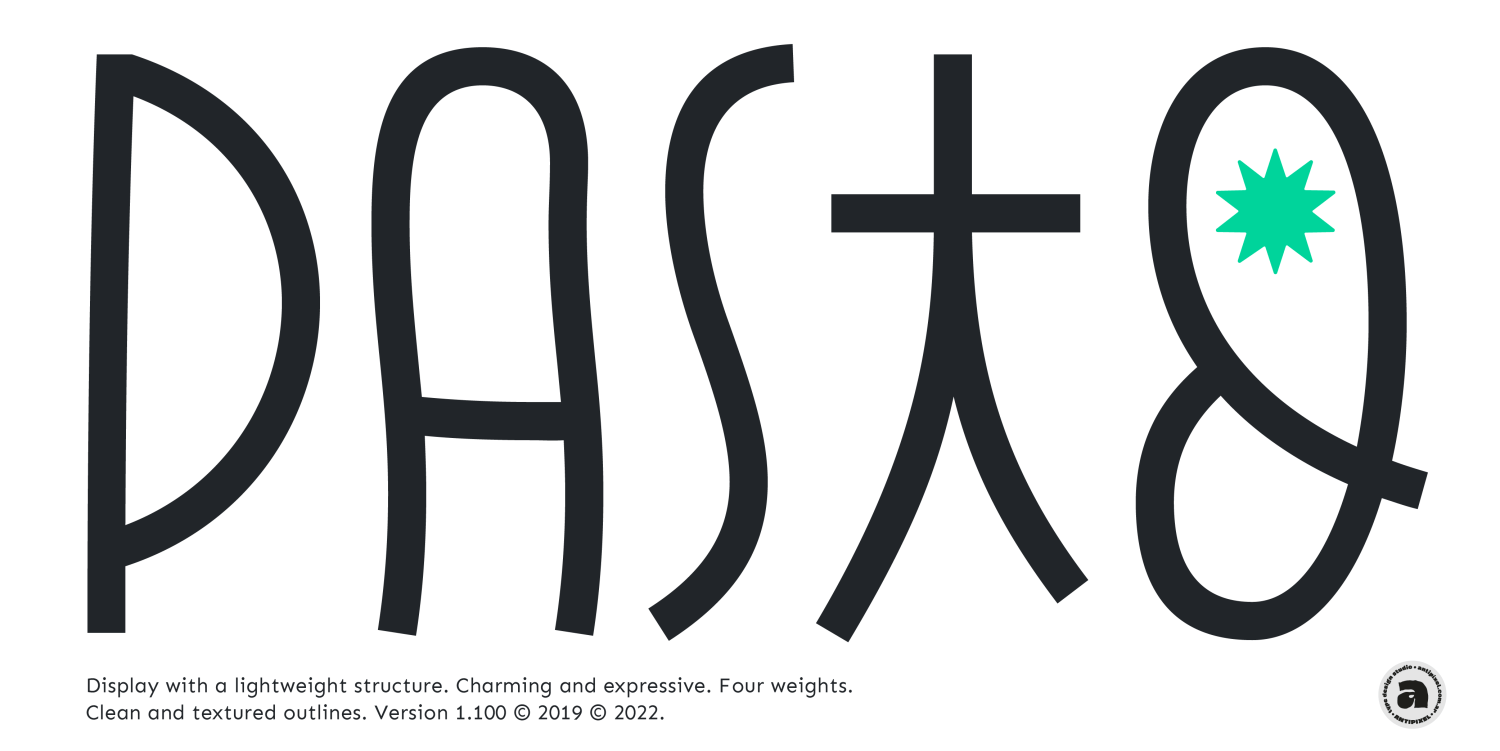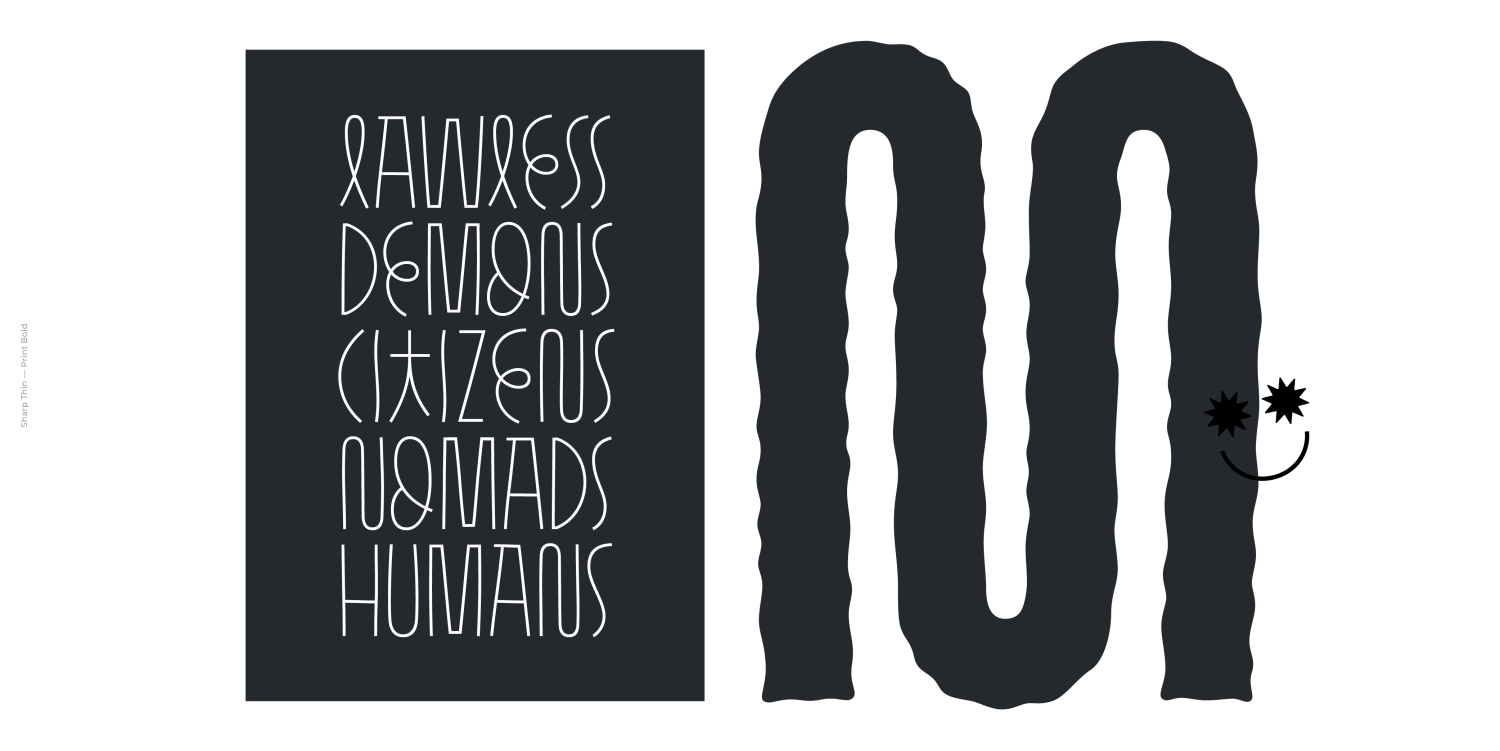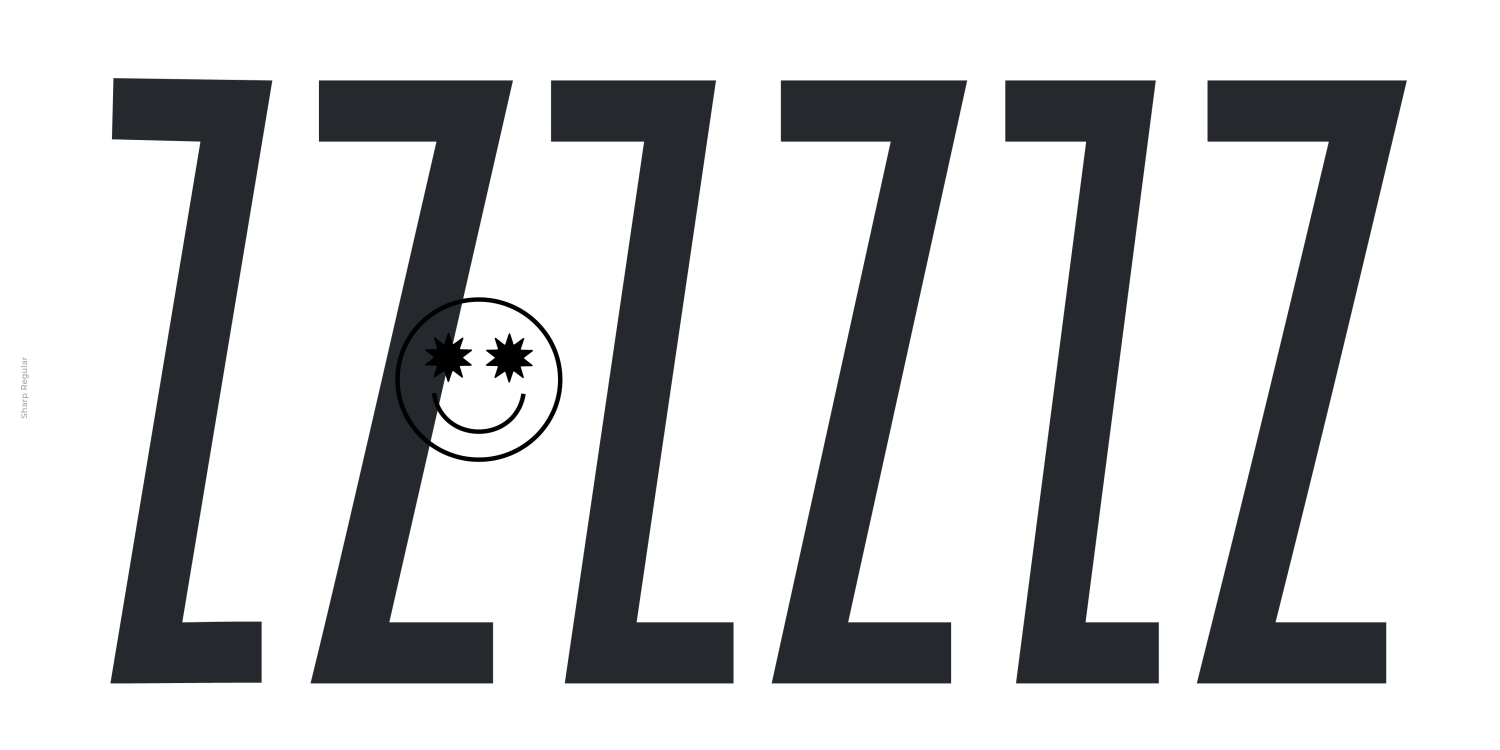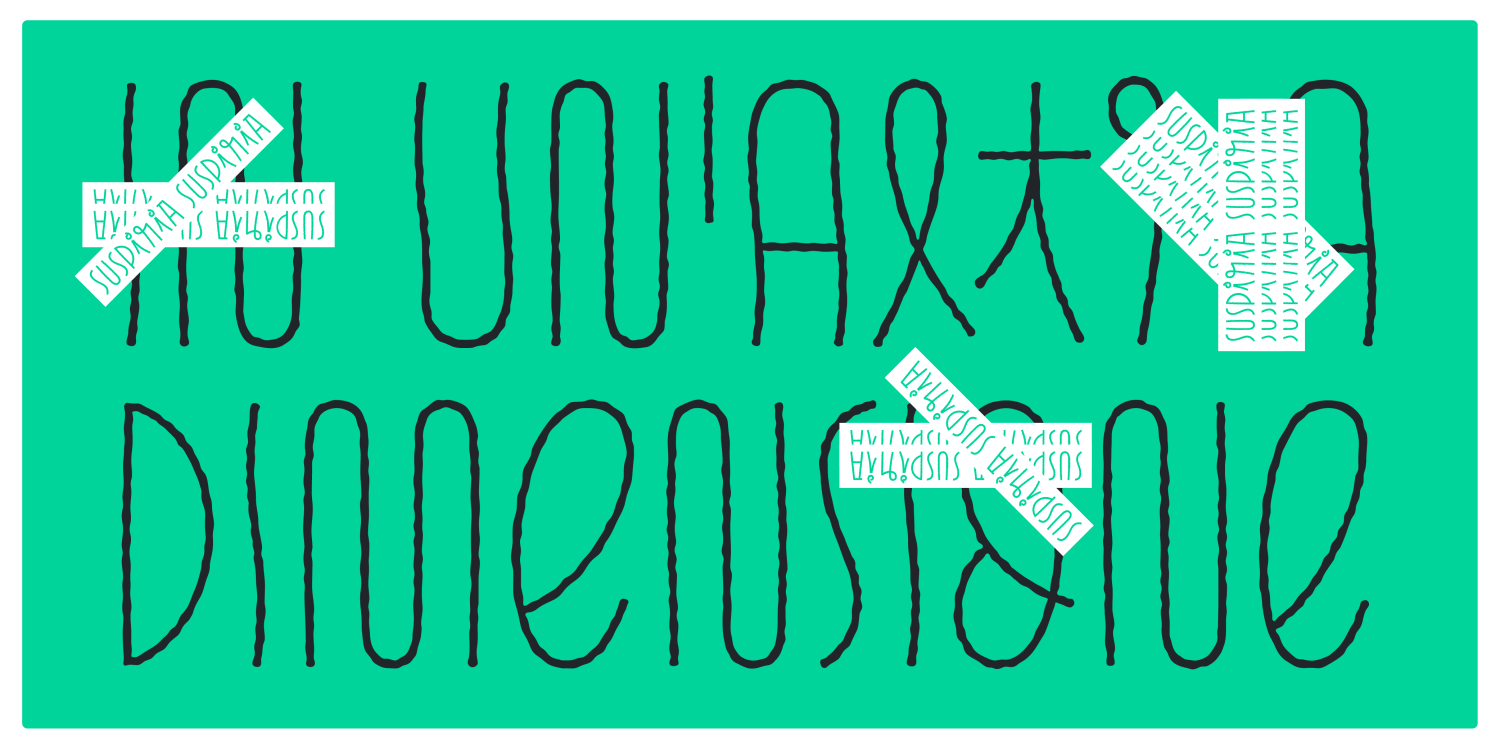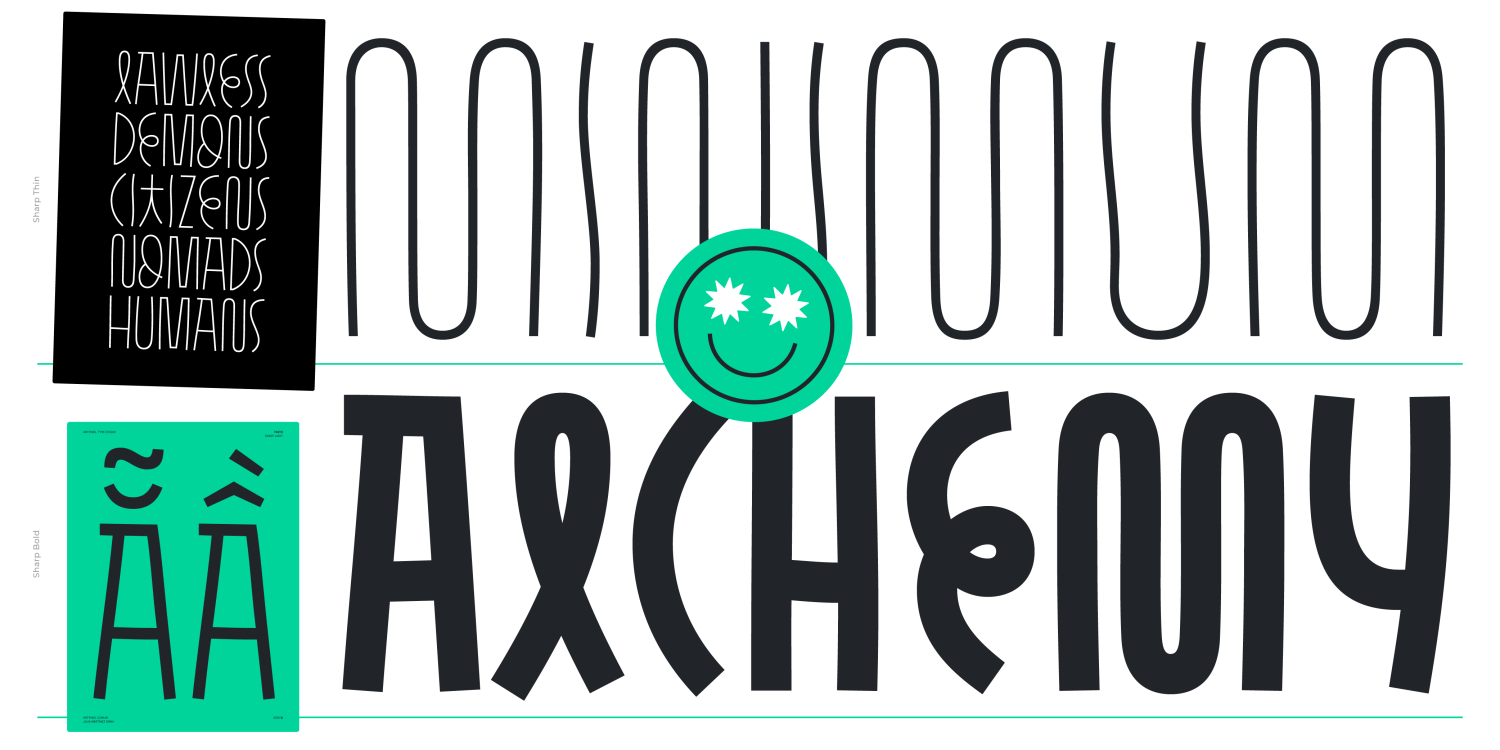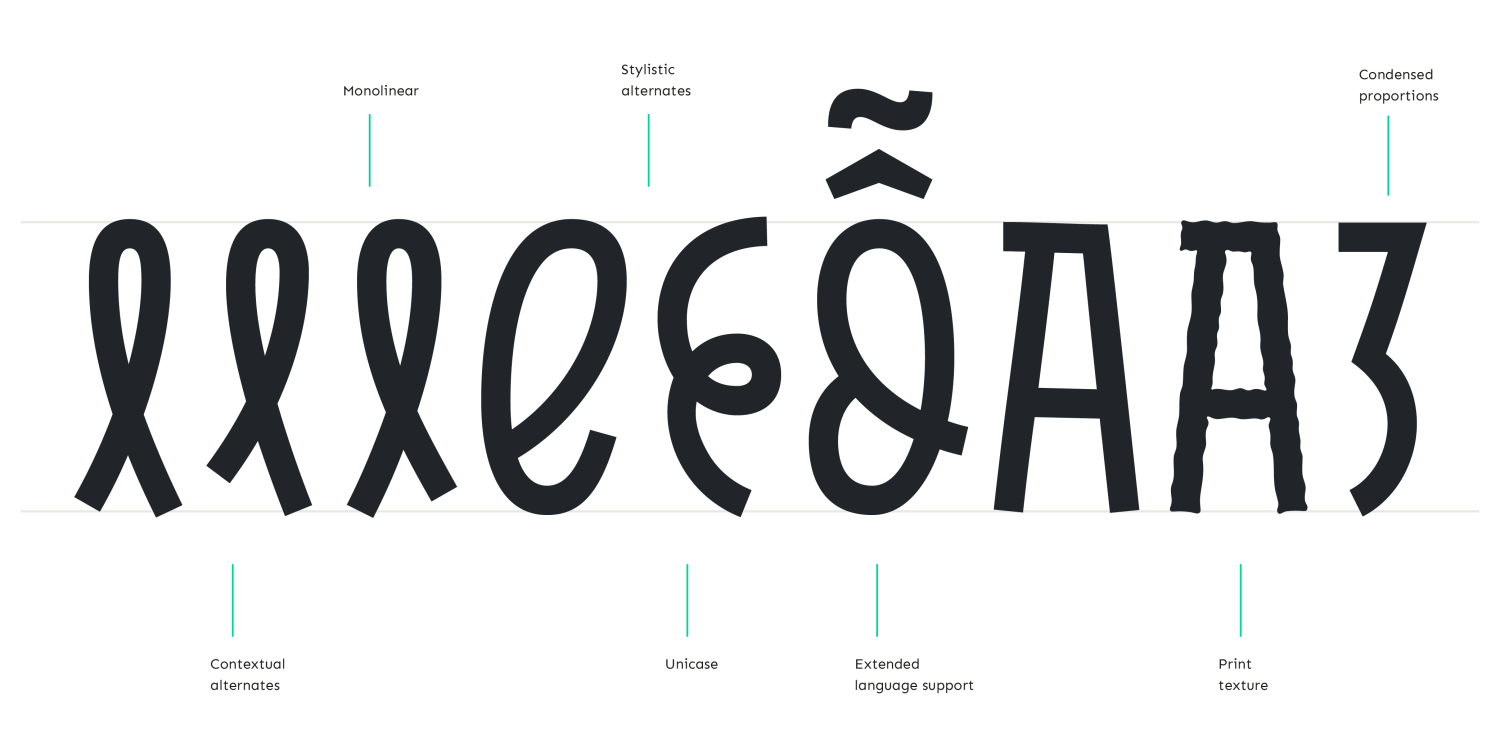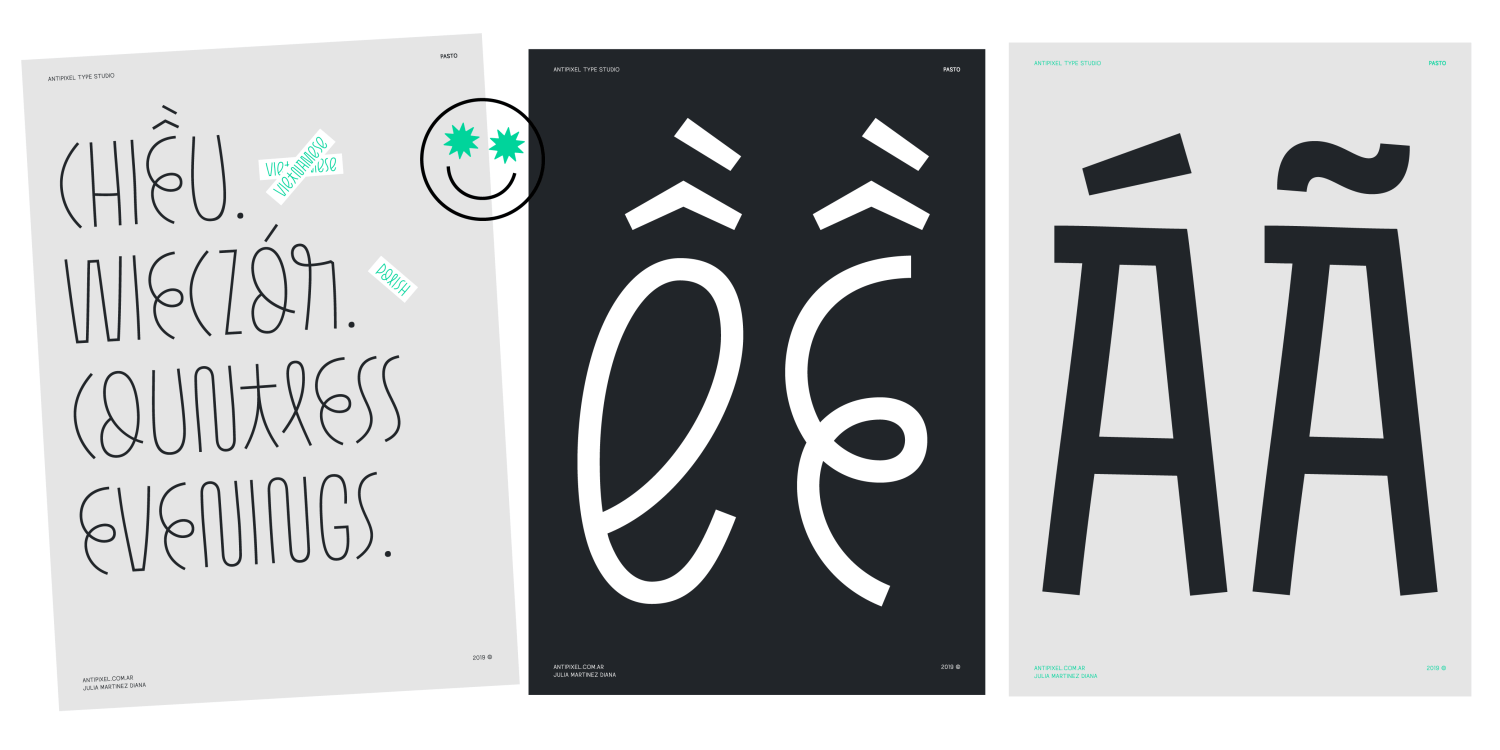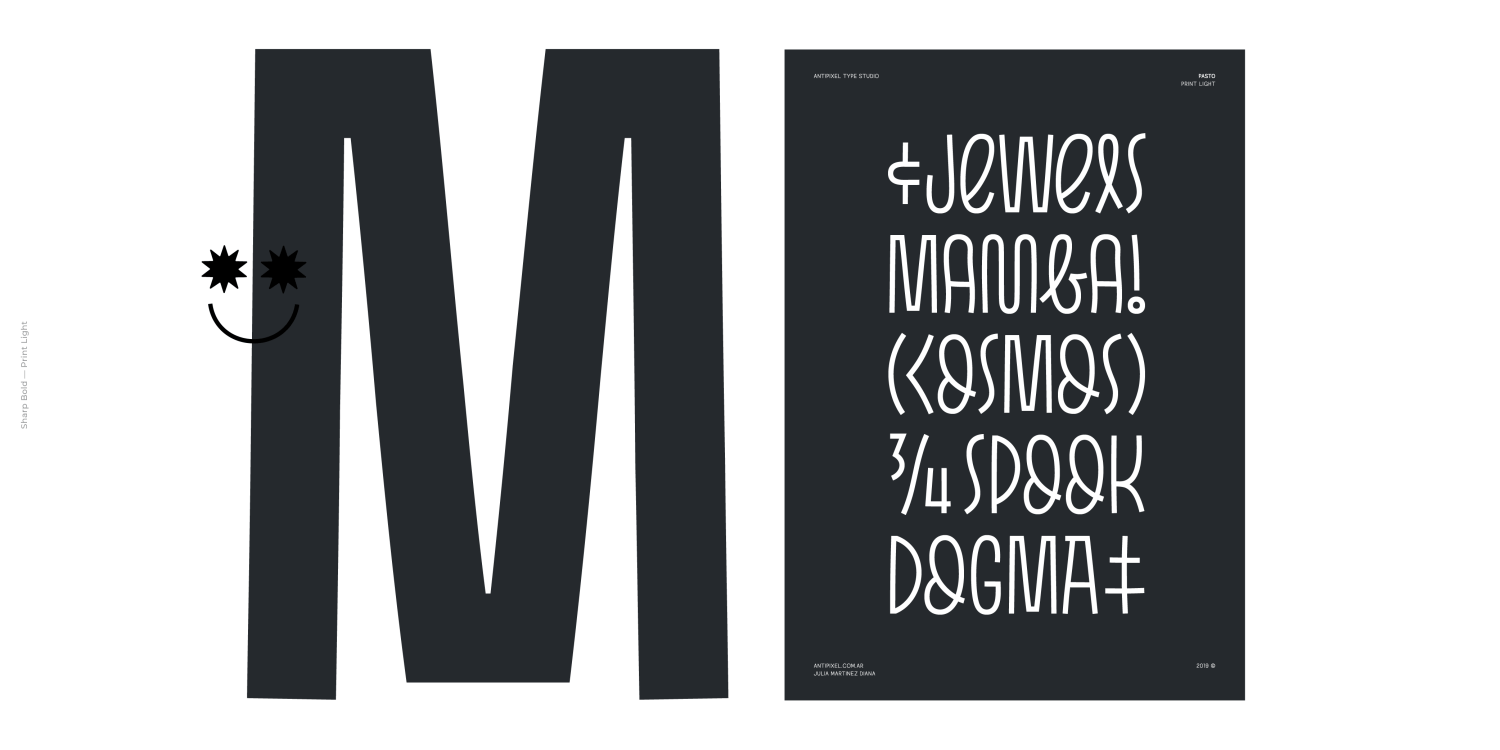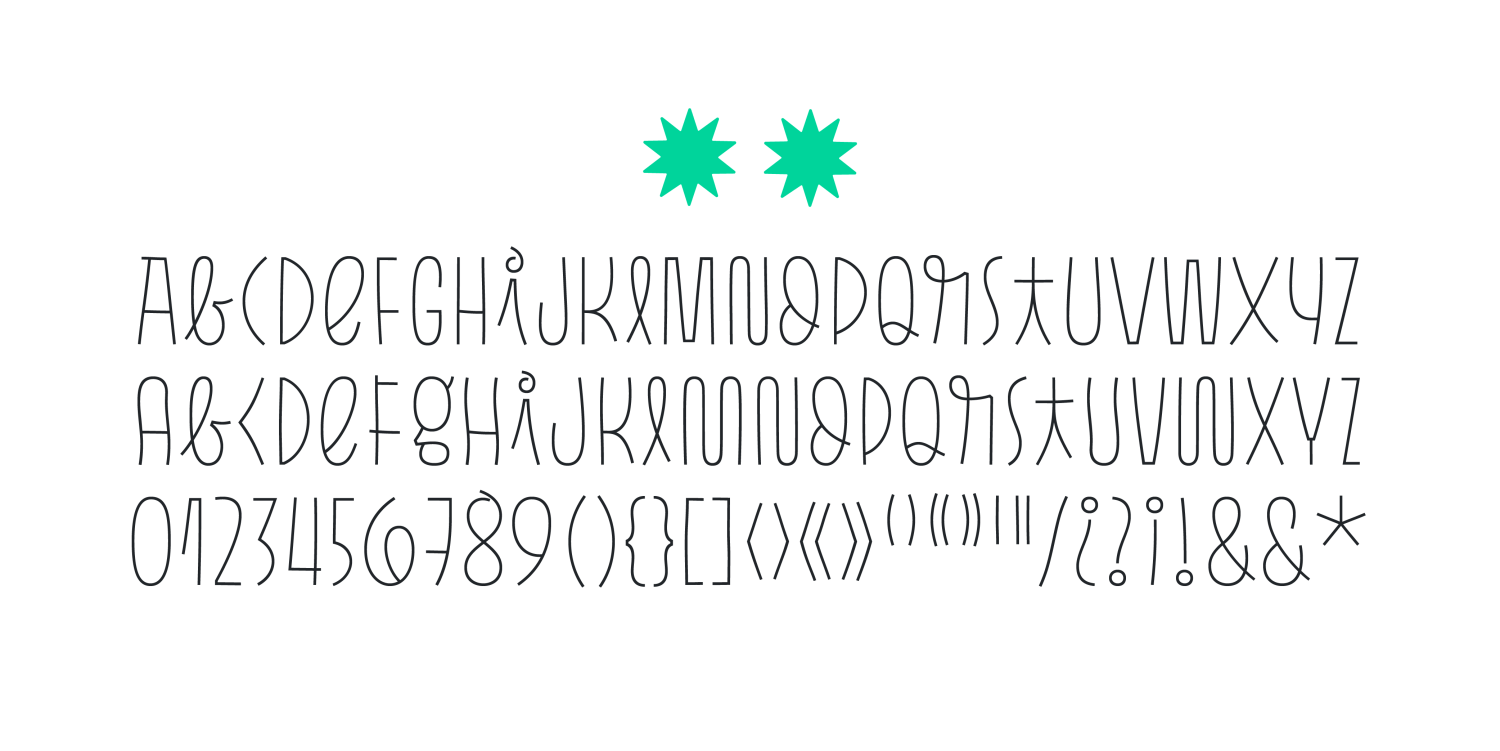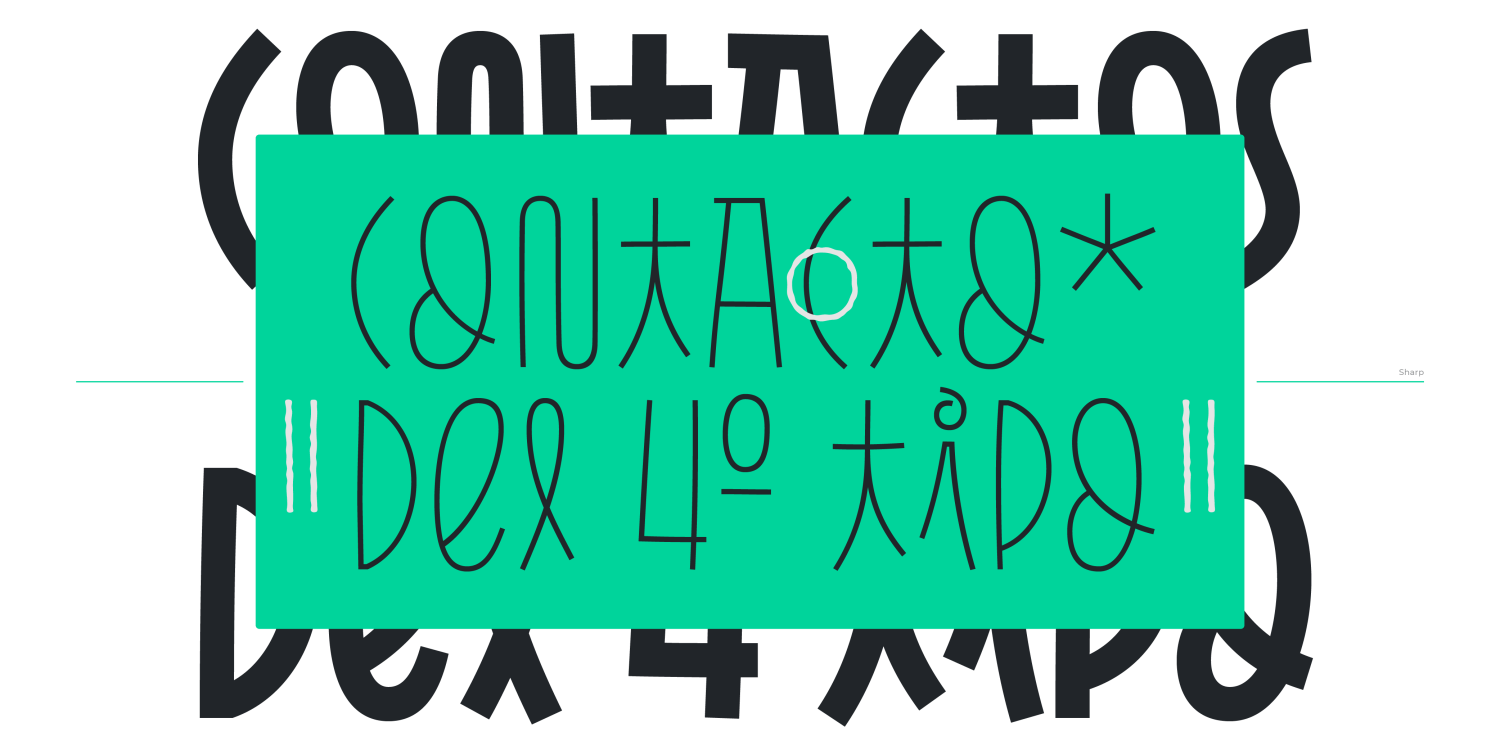
Pasto
Pasto is a fun and charming display type family of two styles with four weights each. 'Print' is a textured irregular stamp style, and 'Sharp' is a straightforward soft-edged type with clean strokes.
It is clean, playful, and expressive, with a lightweight structure and fairly aired inner space. Pasto is perfect for display use and intended for medium and large settings. Still, it can be used in smaller point sizes for short sentences or words, providing a softer, delicate look.
Pasto has three alternating alphabets that slightly differ from one another. Thanks to the Contextual Alternates, these alphabets are automatically replaced to avoid the same letterforms and textures appearing next to each other, creating a more spontaneous look when typing. This OT Feature is available for all the Sharp and Print styles.
Some of Pasto's features are Ligatures, Stylistic Alternates, Numerators, Fractions, special characters, currency symbols, and a glyph coverage that ensures extended language support.